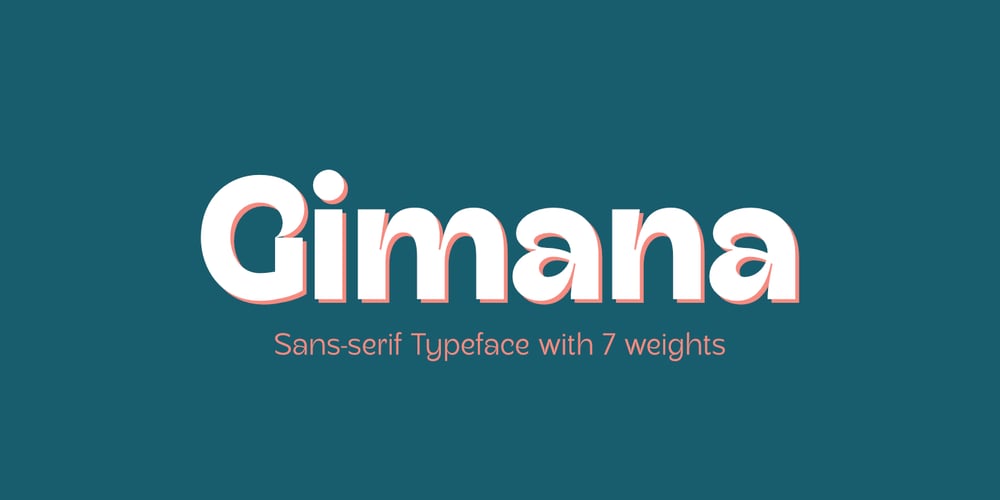
Gimana
Gimana font
Gimana Font Family was designed by Muhammad Hastian and published by Hazztype. Gimana contains 7 styles and family package options. Introducing gimana sans serif display font, meticulously designed with deep inktrap details. Crafted for optimal legibility and aesthetic appeal, this font seamlessly blends modernity and tradition. Its generous proportions and balanced letterforms provide exceptional clarity and readability across various digital and print mediums. With its deep inktraps, this font showcases subtle details that enhance its overall visual texture, adding a touch of sophistication to your projects. Its humanist characteristics ensure legibility and readability, making it an ideal choice for a wide range of applications. The deep experimental inktraps add an intriguing element to the font, creating an interplay of light and shadow that captures attention.